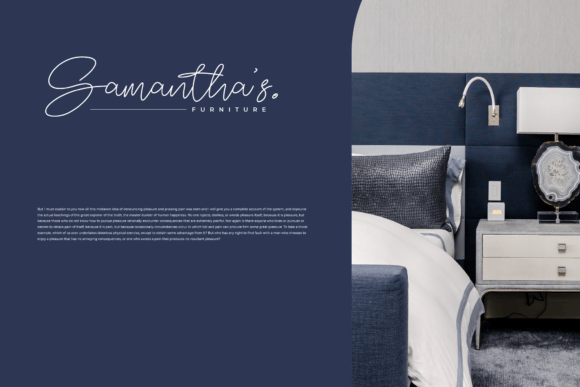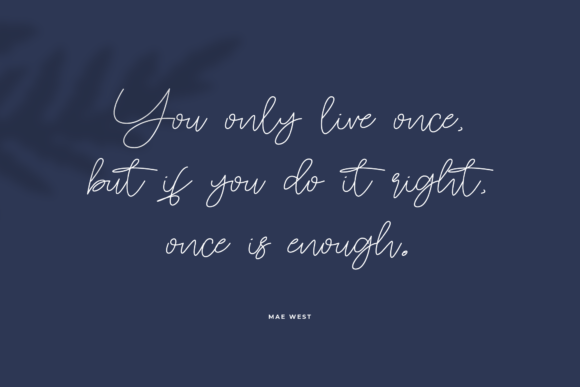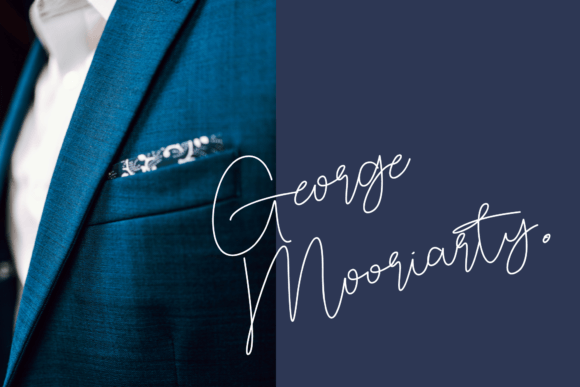
Introduction to Malinavsky Font
Have you ever found yourself sitting at your desk, surrounded by scribbled notes and half-finished ideas, desperately searching for the perfect font to bring your creative project to life? For designers and crafty enthusiasts alike, finding the right font can be a daunting task. But what if I told you that there’s a font that’s as smooth as a summer breeze and as elegant as a handwritten love letter? Enter the Malinavsky Font, a script font that’s sure to elevate your next design project to new heights.
With its monoline lines and simple yet sophisticated design, the Malinavsky Font is the perfect choice for any creative endeavor. Whether you’re planning a wedding, designing invitation cards, or simply looking for a high-quality font for your next craft project, this font has got you covered. And the best part? It’s available for free download, making it an accessible design resource for anyone looking to take their creative project to the next level.
Key Features of Malinavsky Font
- Unique, hand-drawn design ideal for creative projects and high-quality design resources.
- Features a transparent background, making it easy to integrate into any design project.
- Includes a comprehensive character set, including uppercase and lowercase letters, numbers, and punctuation marks.
- Designed to be versatile and adaptable for use in a variety of design contexts, from branding and logos to digital graphics and more.
Honest Review: Malinavsky Font
As a designer, I’ve had the pleasure of working with numerous fonts, but the Malinavsky Font has been a recent discovery that has left me impressed. With its free download option, it’s a fantastic resource for any creative project.
One of the standout features of the Malinavsky Font is its high-quality design. The font is crisp and clean, making it perfect for designs that require a touch of sophistication. The transparent background feature also allows for seamless integration with any background image or color.
- ⚠️ Limited character set, which may not be suitable for extensive text-based projects
- ⚠️ Some users may find the font too minimalist, lacking in personality
Overall, I’m thoroughly impressed with the Malinavsky Font. While it may have some limitations, its high-quality design and transparent background feature make it an excellent addition to any designer’s toolkit. I’d highly recommend it for any creative project that requires a touch of elegance and sophistication.
Tips for Getting the Most Out of Malinavsky Font
Use the Malinavsky Font on a transparent background to achieve a seamless design. Experiment with different font sizes and styles to create a visually appealing effect.
The Malinavsky Font is suitable for various design projects, including logos, graphics, and typography-based designs. Its high-quality design makes it an excellent choice for creative projects requiring a unique and stylish font.